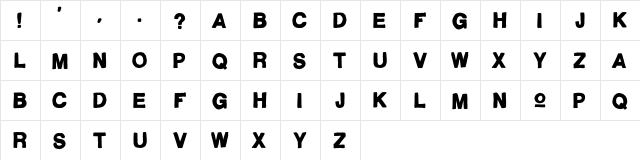
California Rad Regular
Design Context for California Rad Typeface
California Rad offers clean, dependable letterforms without strong stylistic allegiance, making it a practical choice for designers who need flexibility.